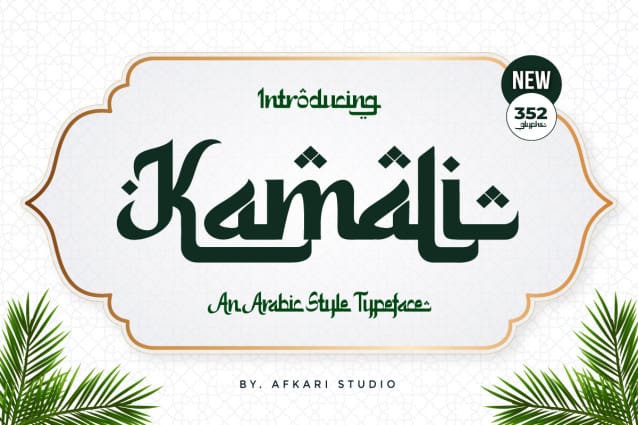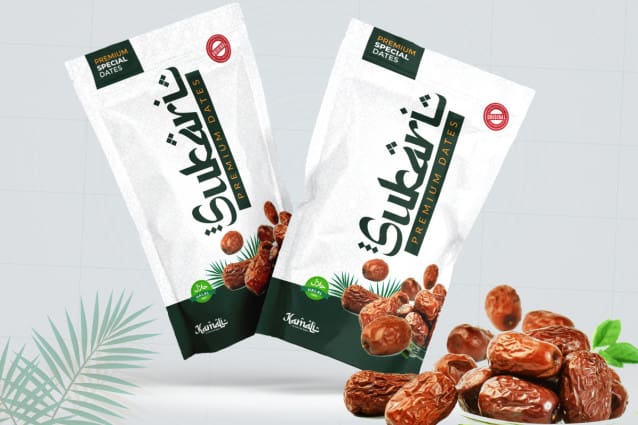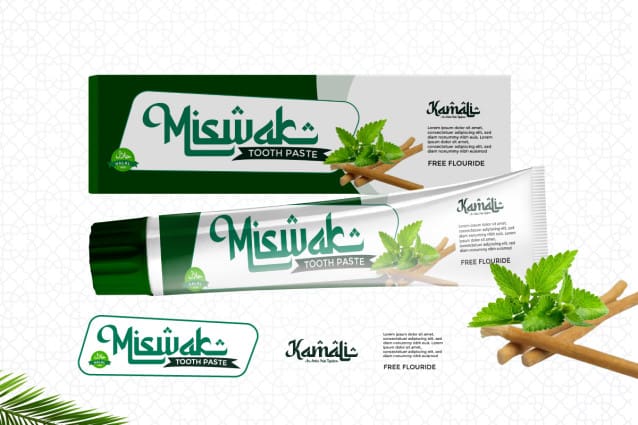
Kamali Arabic Font
Kamali Arabic Font, an enchanting Arabic-style typeface that captures the spirit of Ramadan and Islamic design. Immerse your designs in the rich cultural heritage of Arabic calligraphy with this exceptional font. Kamali is carefully crafted to impart an authentic Arabic essence to every text, making it the perfect choice for graphic design projects inspired by Islamic or Arabic aesthetics.
Designed with Latin characters, Kamali ensures global readability, allowing your messages to resonate across international audiences without the need for familiarity with Arabic script. Whether you’re working on branding, product packaging, quotes, flyers, posters, logotypes, apparel, T-shirts, hoodies, book covers, movie titles, advertising, or more, Kamali effortlessly elevates the visual appeal of your creations.
Kamali – An Arabic Style Typeface